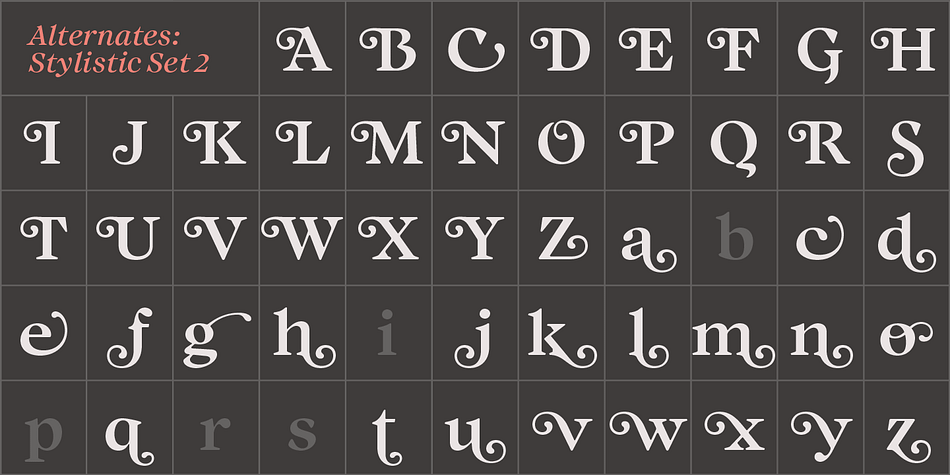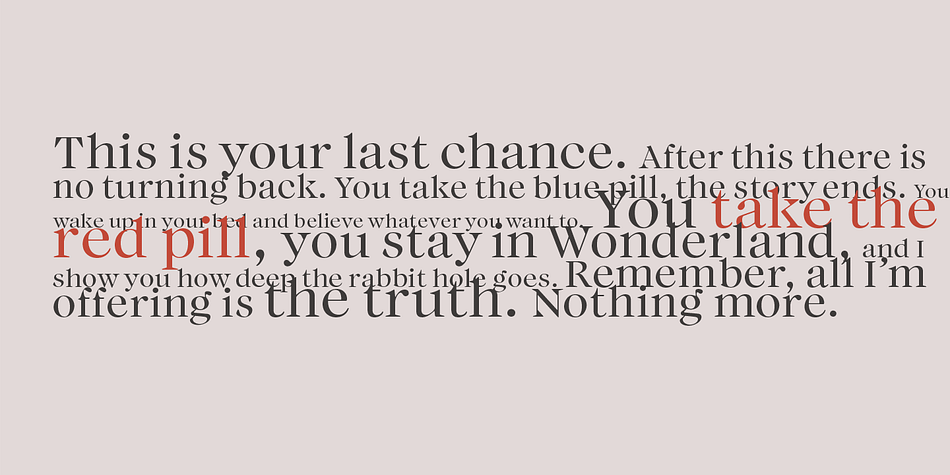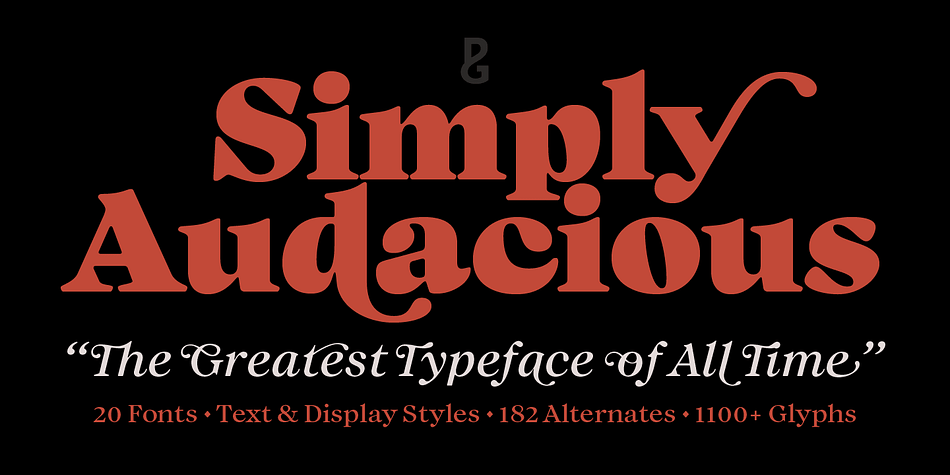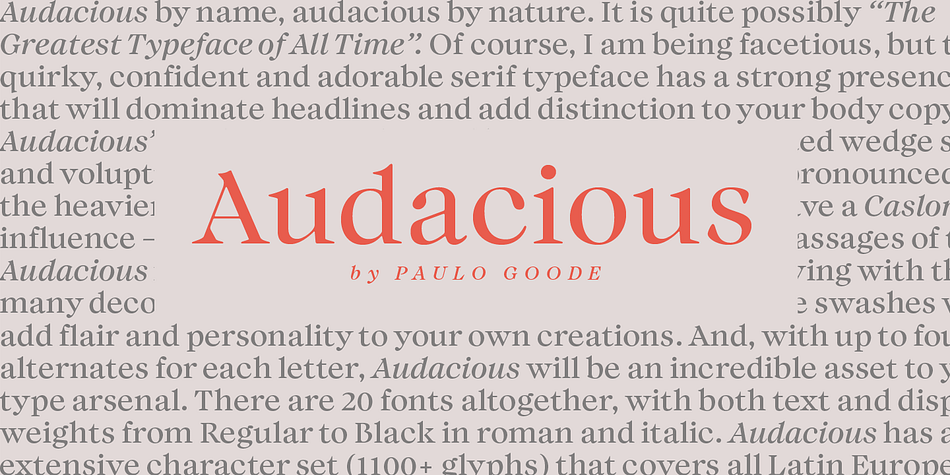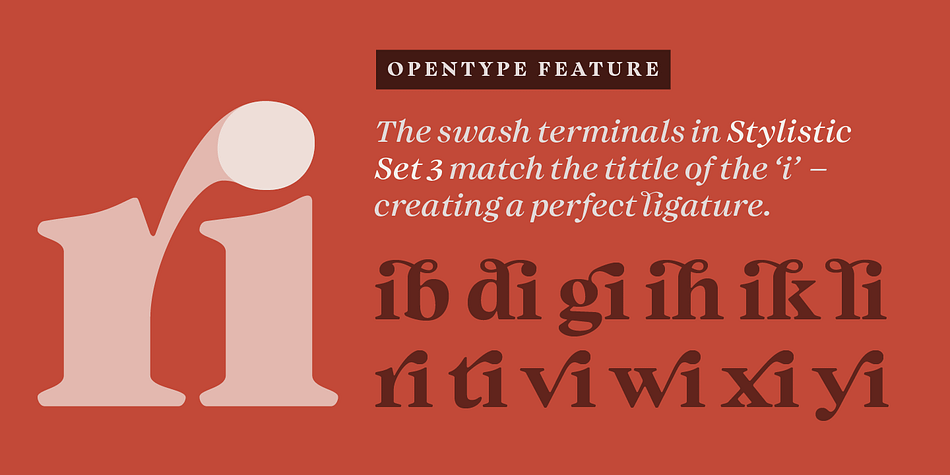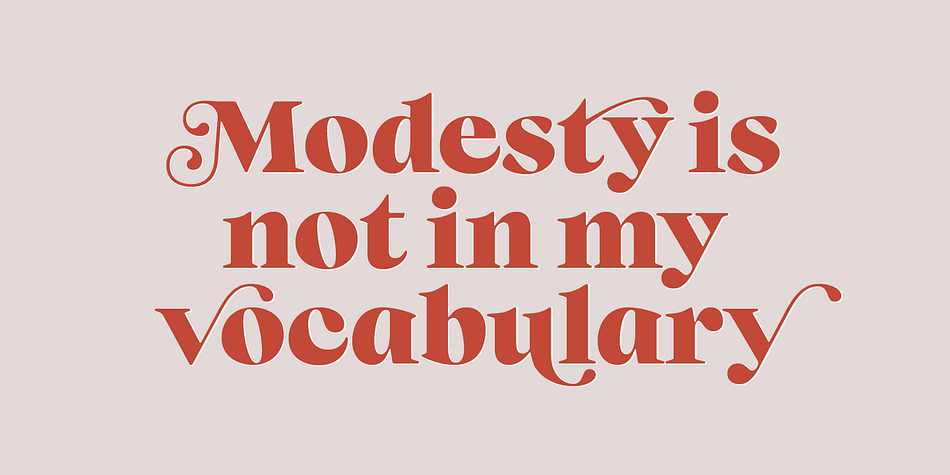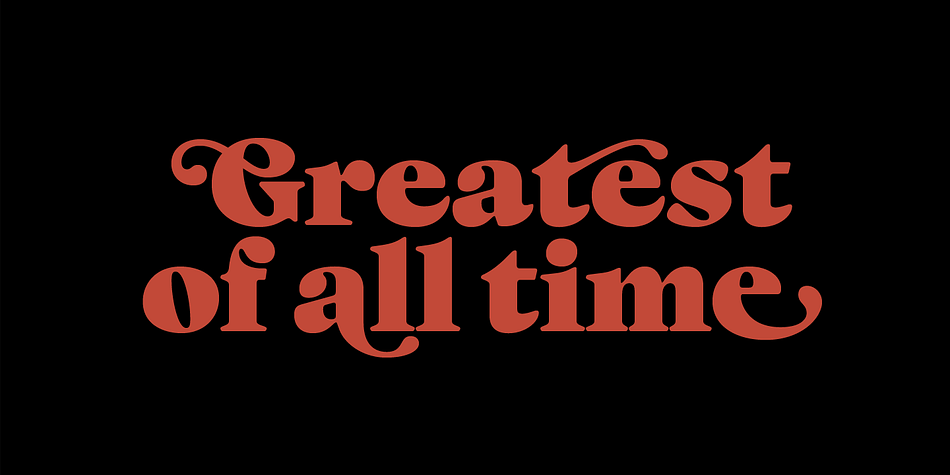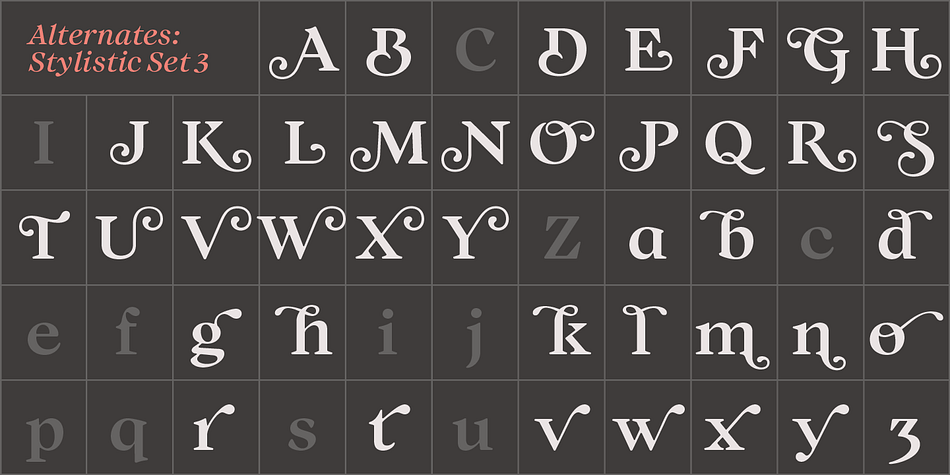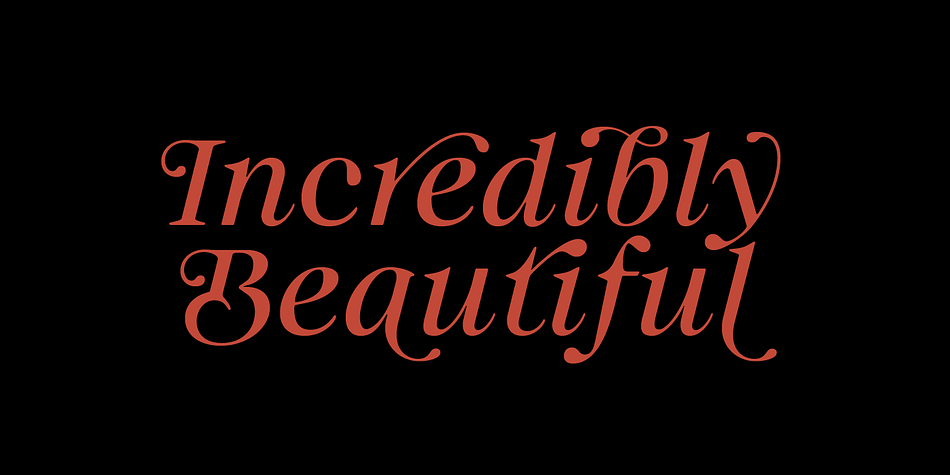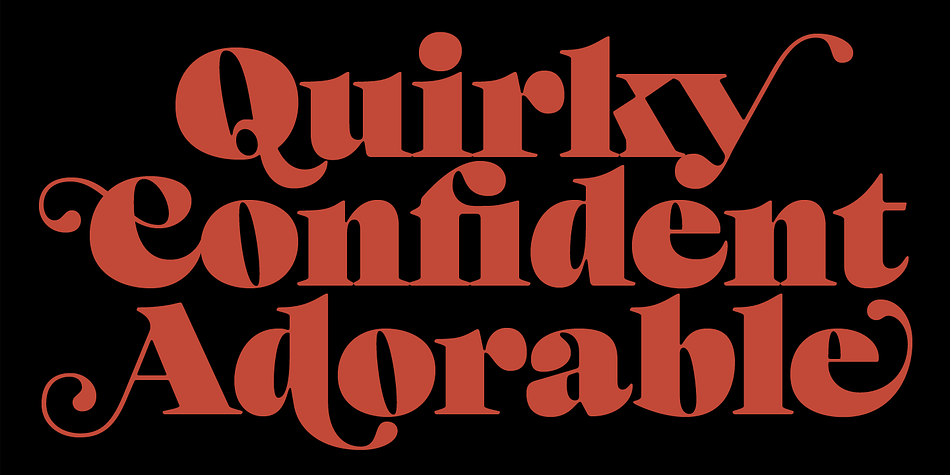
Designed by Paulo Goode, Audacious is a display serif font family. This typeface has twenty styles and was published by Paulo Goode.
Audacious is a quirky, confident and adorable serif type family across five weights in both text and display styles. This attention-grabbing typeface has an imperfect nature that embraces its quirks and irregularities, giving each font a distinctive and somewhat oddball personality. Its defining characteristics include large open counters, awkward stresses, large exaggerated wedge serifs, and voluptuous teardrop terminals.
Whatever typographic compositions you create, Audacious will demand attention, making it perfect for titling, headlines, logotype, and branding projects. Take advantage of the 182 stylistic alternates to embellish your type and add that touch of class to titles and logos. Display weights work really well with close line spacing and stunning headlines are a breeze to create. Text weights make for a pleasant reading experience while packing all the punch and versatility found in the display variants.
There are 20 fonts altogether, in Text and Display styles with weights from Regular to Black in both roman and italic. Audacious has an extensive character set that covers all Latin European languages.